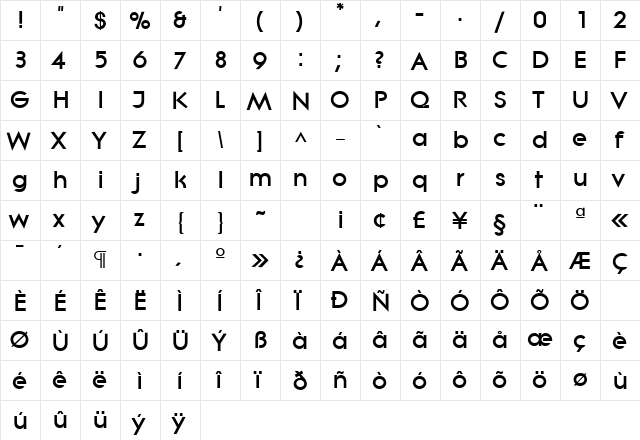
Lissen Regular
Design Context for Lissen Typeface
Lissen offers clean, dependable letterforms without strong stylistic allegiance, making it a practical choice for designers who need flexibility.
Pro Tip: Use Lissen in both headline and body roles to test its range before committing to a single application.